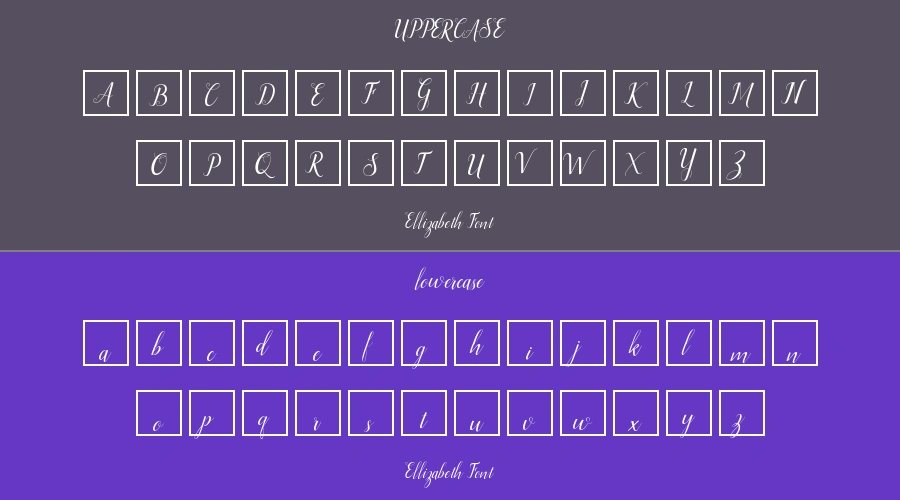
About Ellizabeth Font
Ellizabeth Font stands out for its distinctive combination of impactful forms and refinement. Ideal for engineering specs, it provides the accuracy and artistic merit that professional projects demand. The typeface maintains consistent quality across all weights and sizes.
Key features include refined consistent rhythm and practical arbitrary fractions, enhancing typographic expression. In pull quotes applications, Ellizabeth Font demonstrates exceptional kerning accuracy. The aperture size and professional credibility contribute to its distinctive character and professional appeal.